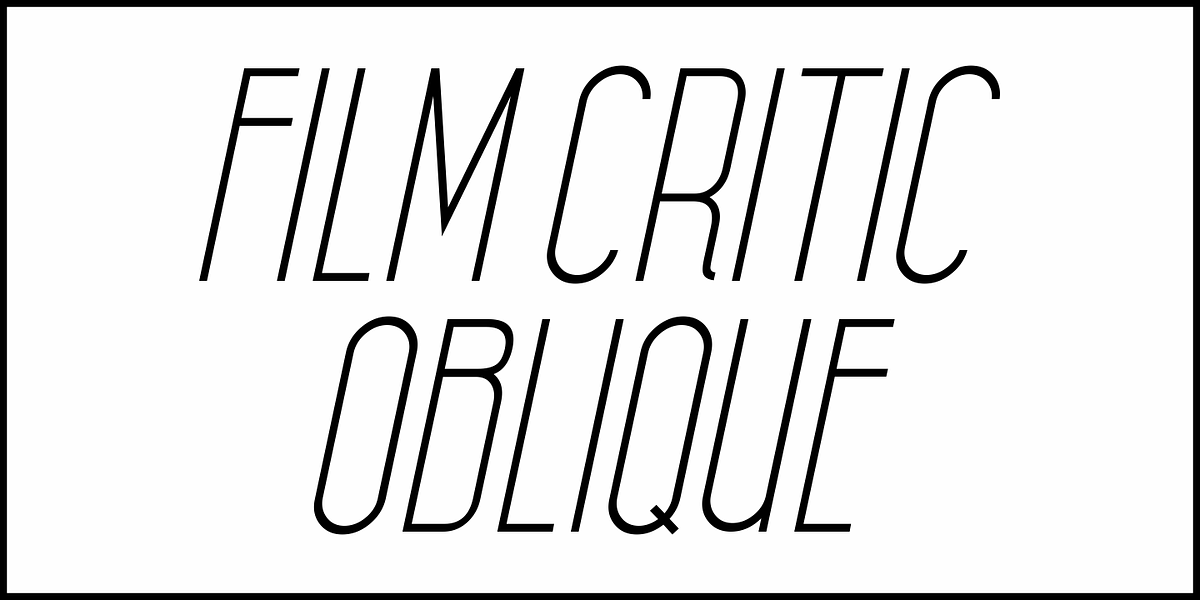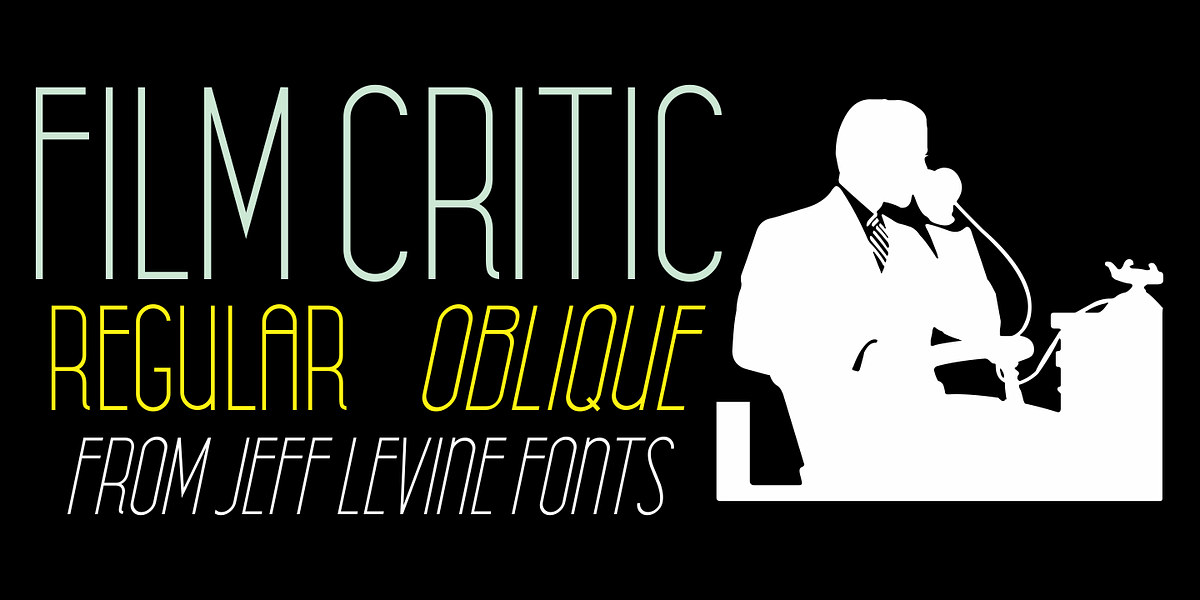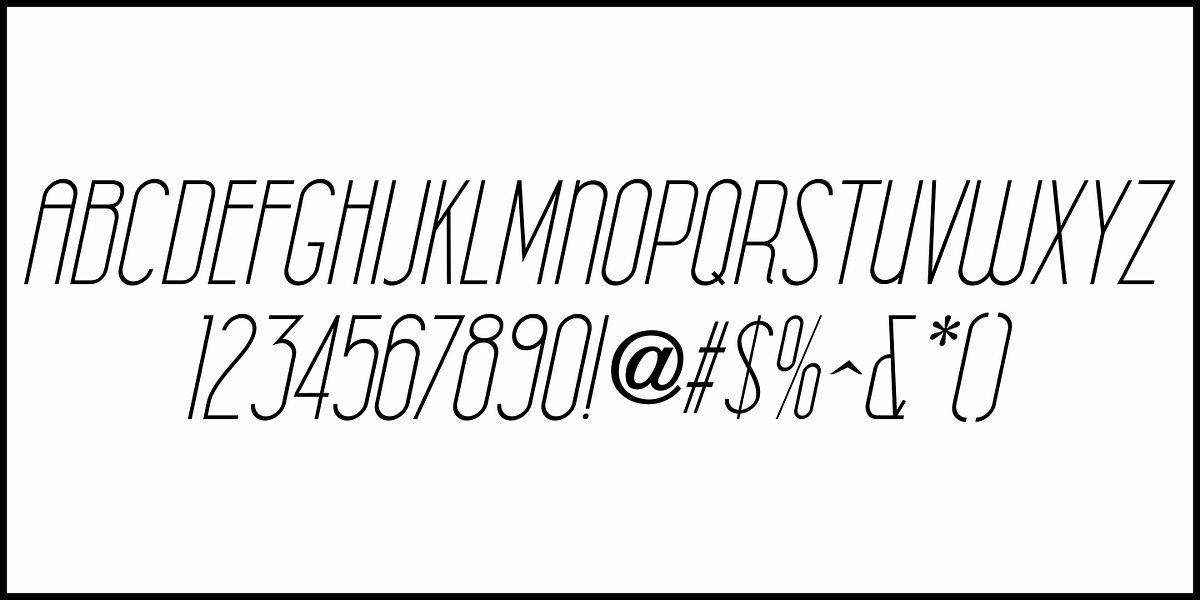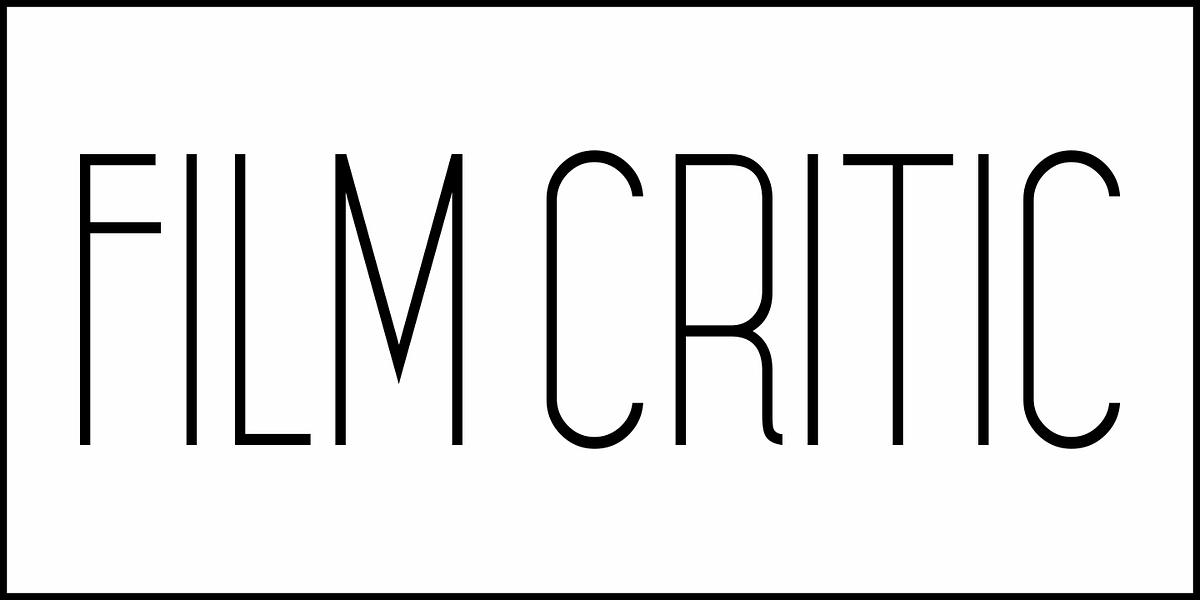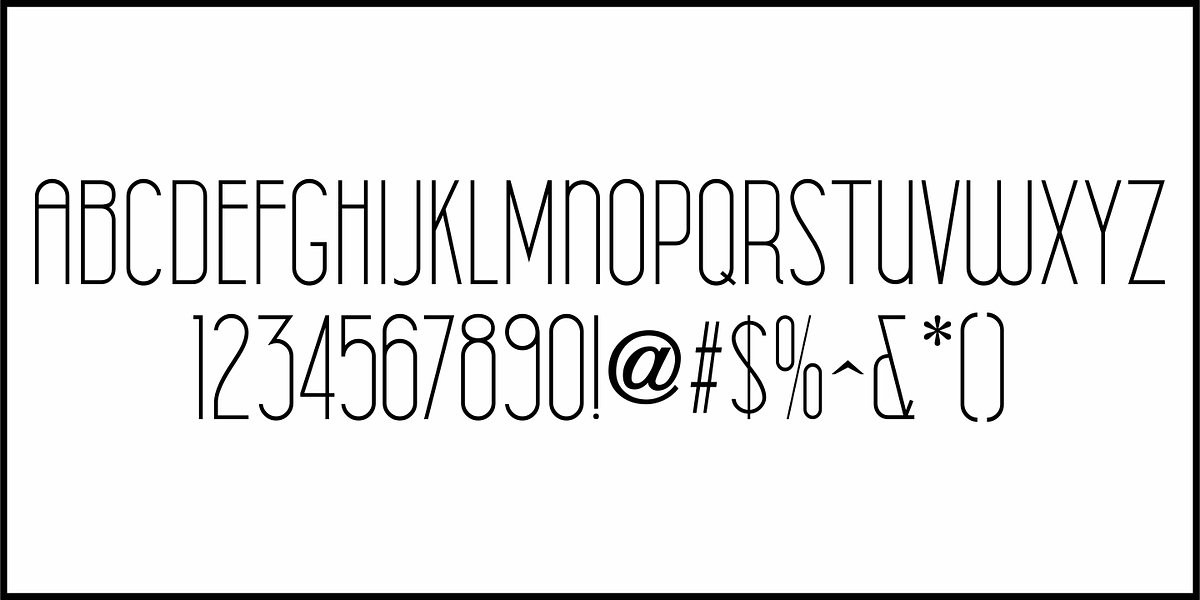
Film Critic JNL
An ongoing movie review column known as the “Critics Forum” (such as was found in the May 23, 1936 issue of The Film Daily) had a simple Art Deco monoline hand lettering of the column’s name.
Redrawn digitally as Film Critic JNL, this typeface is now available in both regular and oblique versions.